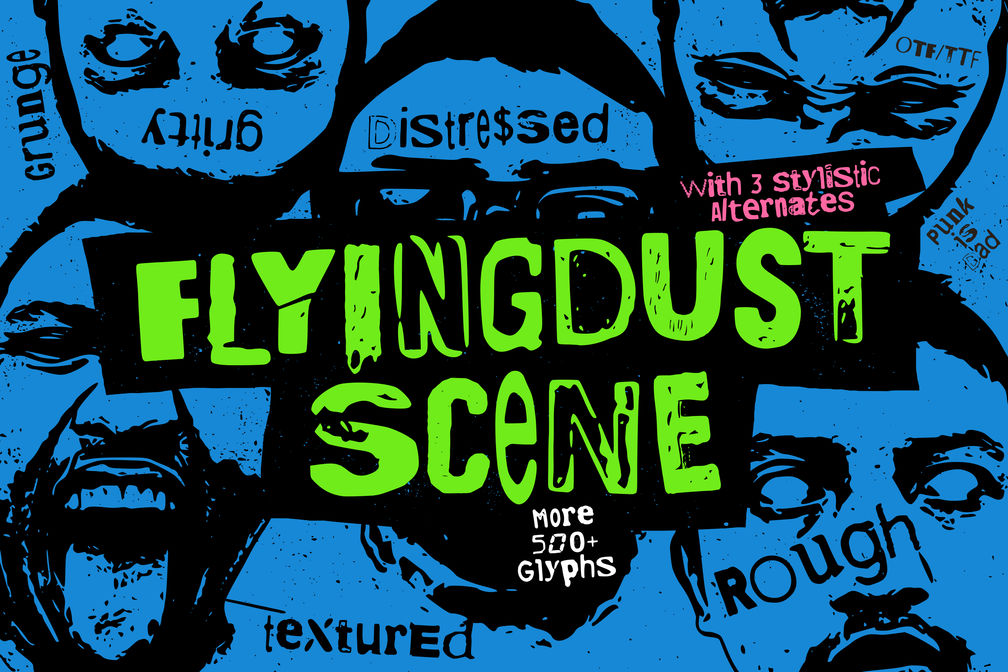
Flyingdust Scene – Punk Grunge Display Typeface
INTRODUCING: FLYINGDUST SCENE
Bring uncompromising underground energy and gritty street rebellion to your creative projects with Flyingdust Scene. Inspired by 90s punk zines, ransom collage art, and rebellious garage rock posters, Flyingdust Scene is engineered to make your headlines hit hard. With its distressed textures, distorted letterforms, and unapologetic character, this typeface delivers the perfect punch for modern streetwear, music merchandise, album covers, and urban branding.
Flyingdust Scene features the complete original glyph set along with three distinct stylistic alternate sets, allowing you to mix, match, and customize each letter to craft an authentic ransom note or handcrafted poster aesthetic effortlessly.
• Uppercase and lowercase character sets
• Complete 3 stylistic alternate sets
• Extensive punctuation, symbols  and glyph variations
• Comprehensive multilingual accent support
• Hand-distressed grunge aesthetics and ransom cut-out forms
• Clean vector curves optimized for both print and digital displays